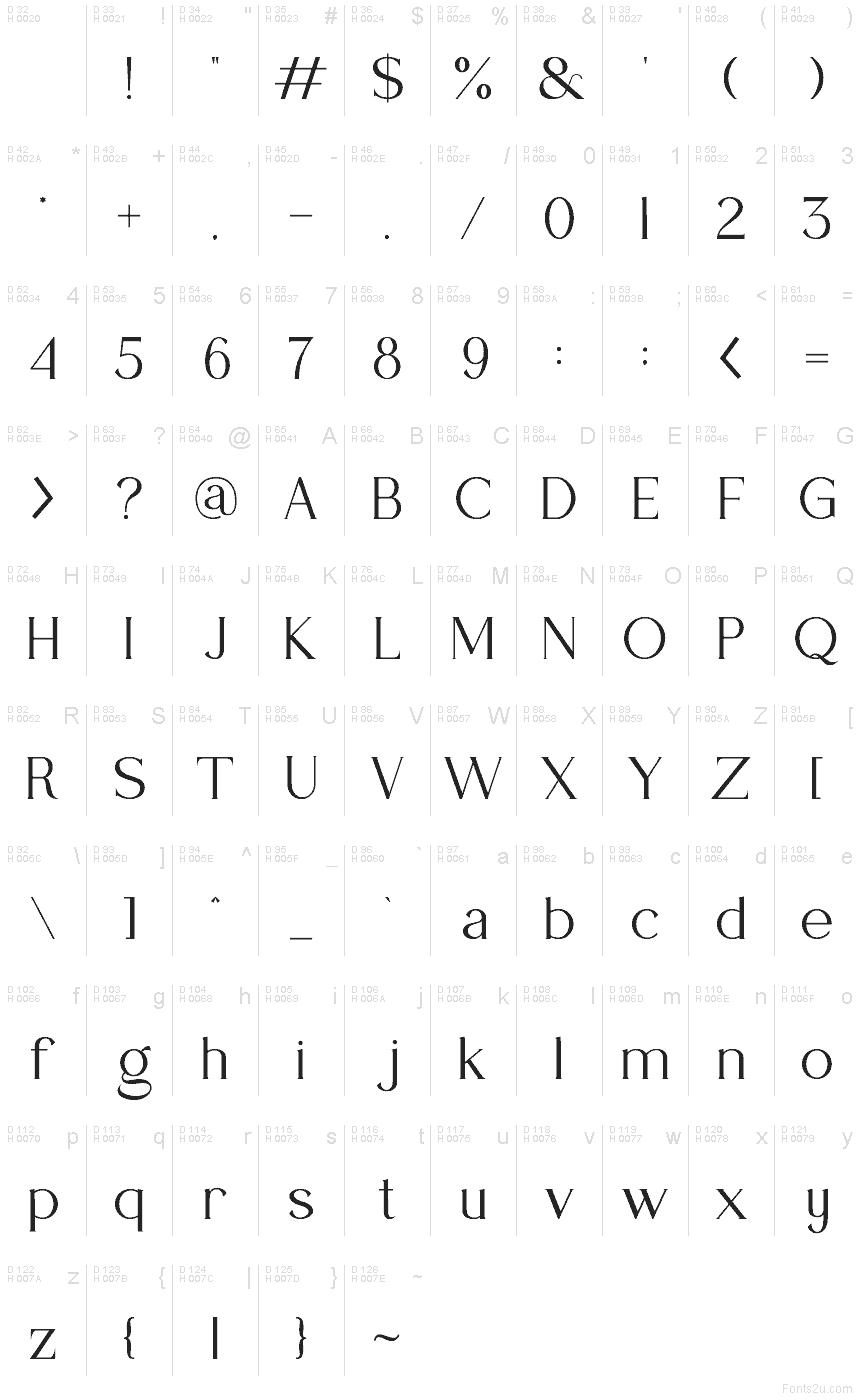
Vocago
Vocago font by Slide Shoot Type is a free high-contrast serif display font. It stands out with sculpted, tapering strokes and glossy teardrop terminals that feel ink-drawn, not machined. The rhythm is elegant but lively—wide bowls, saucy curves, and crisp hairlines that flare into confident wedges—giving headlines a couture snap without looking brittle.
Using Vocago, you’ll get standout logos, editorial mastheads, beauty and fashion branding, upscale packaging, book covers, and event invitations that read luxe at a glance. This free font’s generous contrast and expressive curves create a graceful tempo, so short words and tight titles look sumptuous and intentional. Tip: pair Vocago with a restrained grotesk sans in small caps, and let Vocago handle the big, high-impact words.